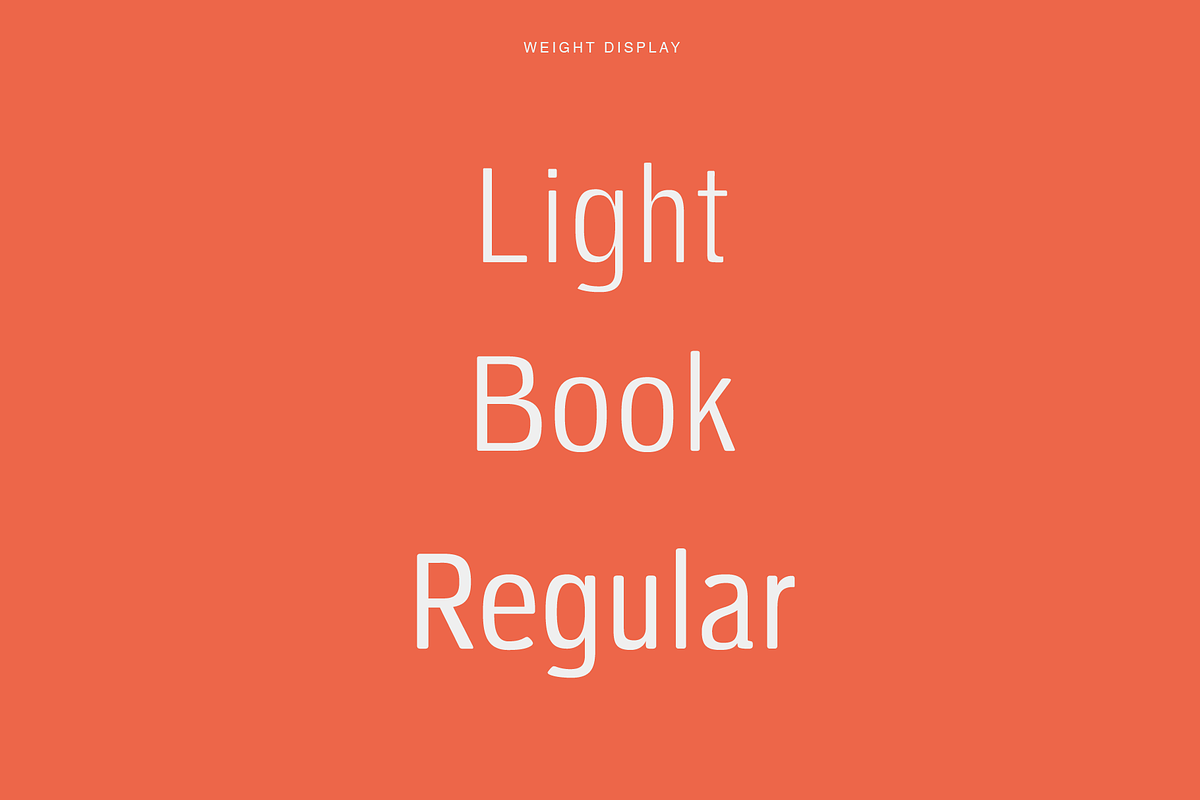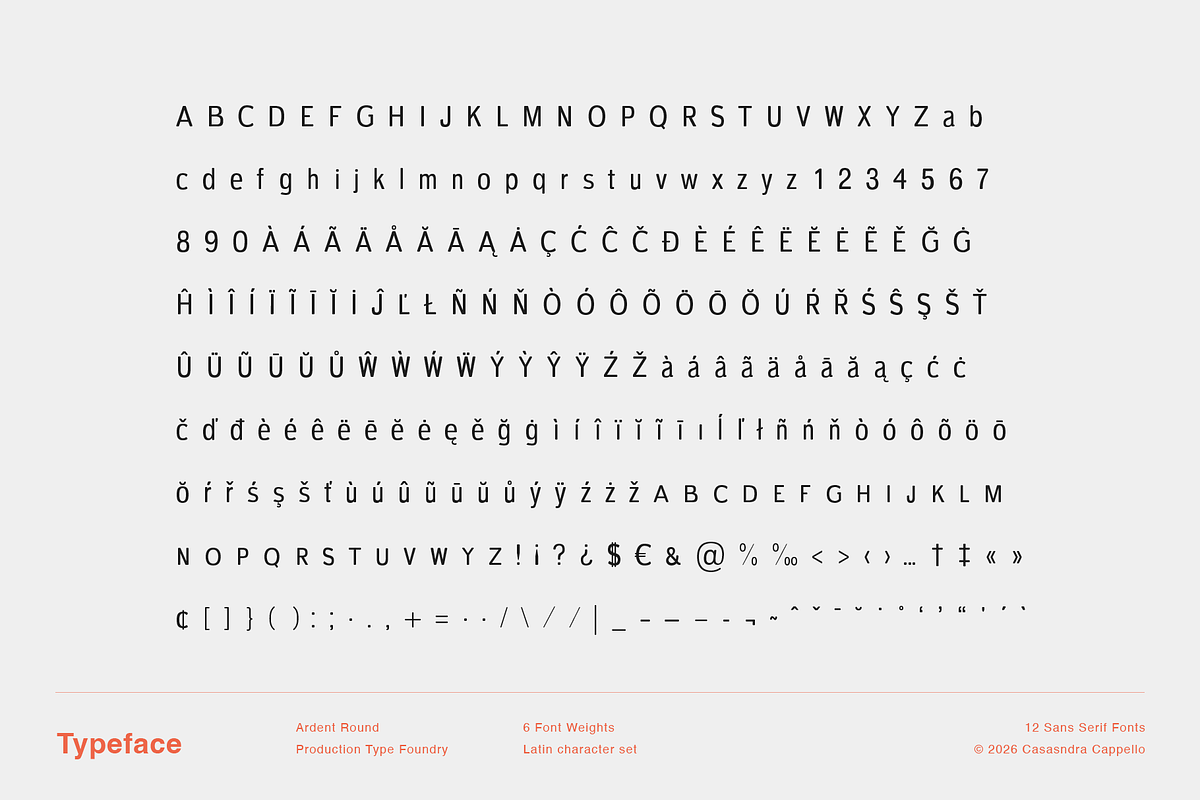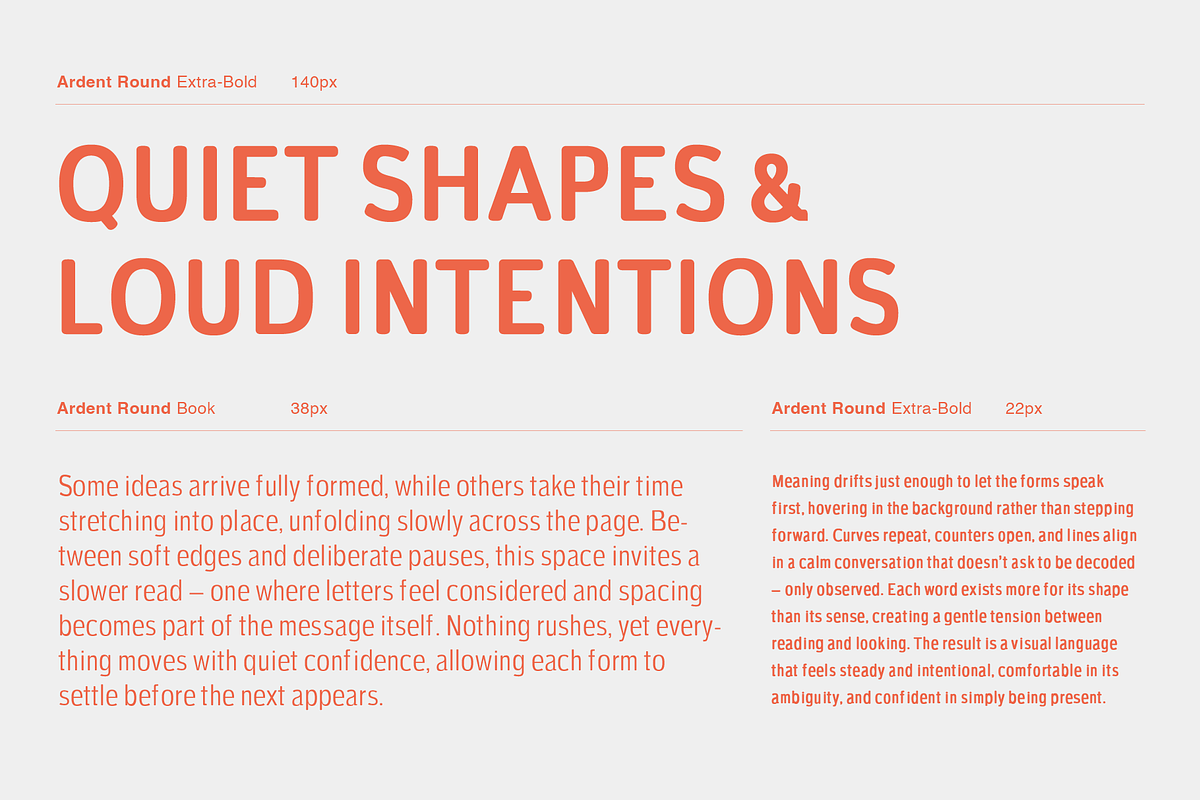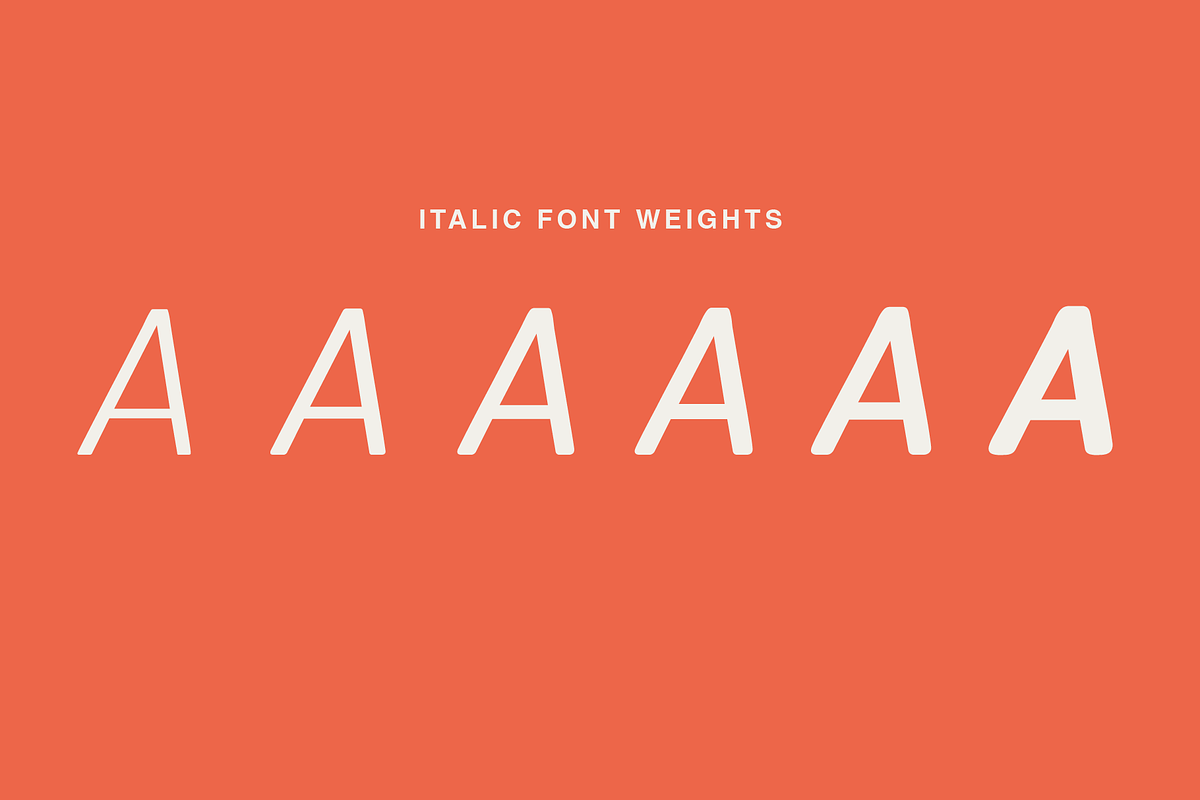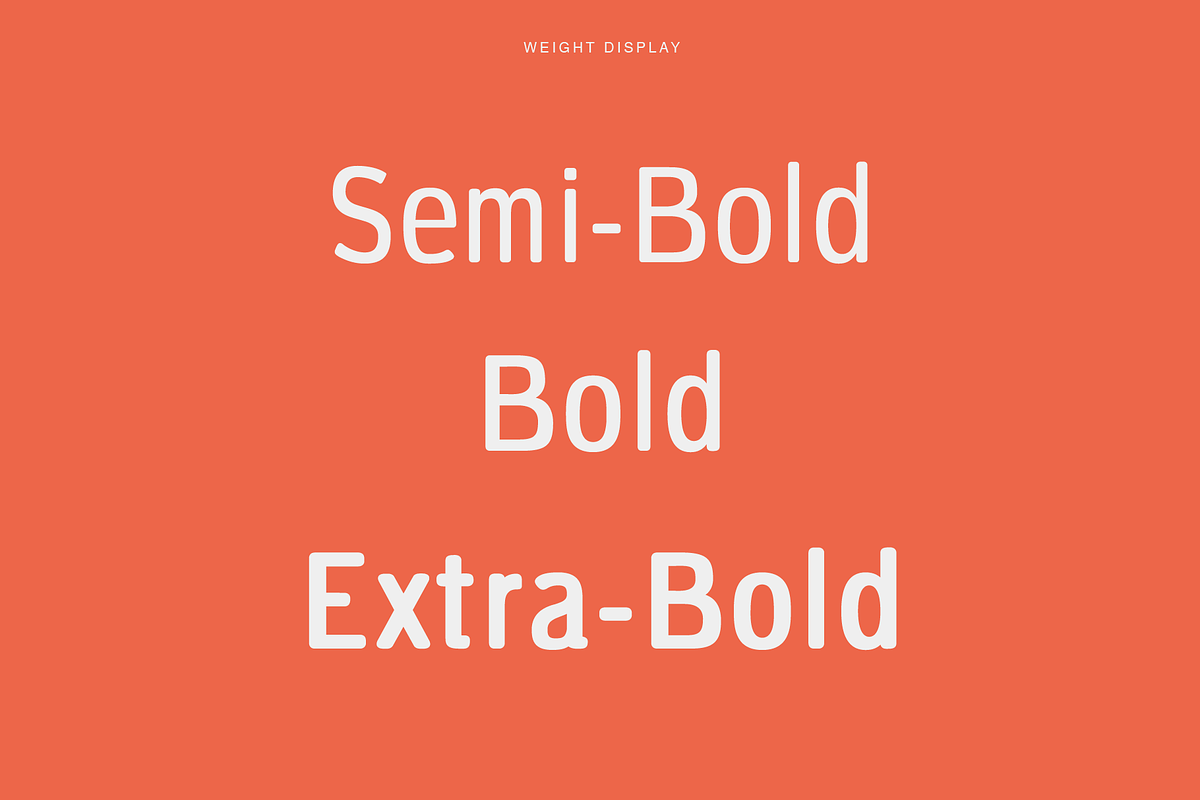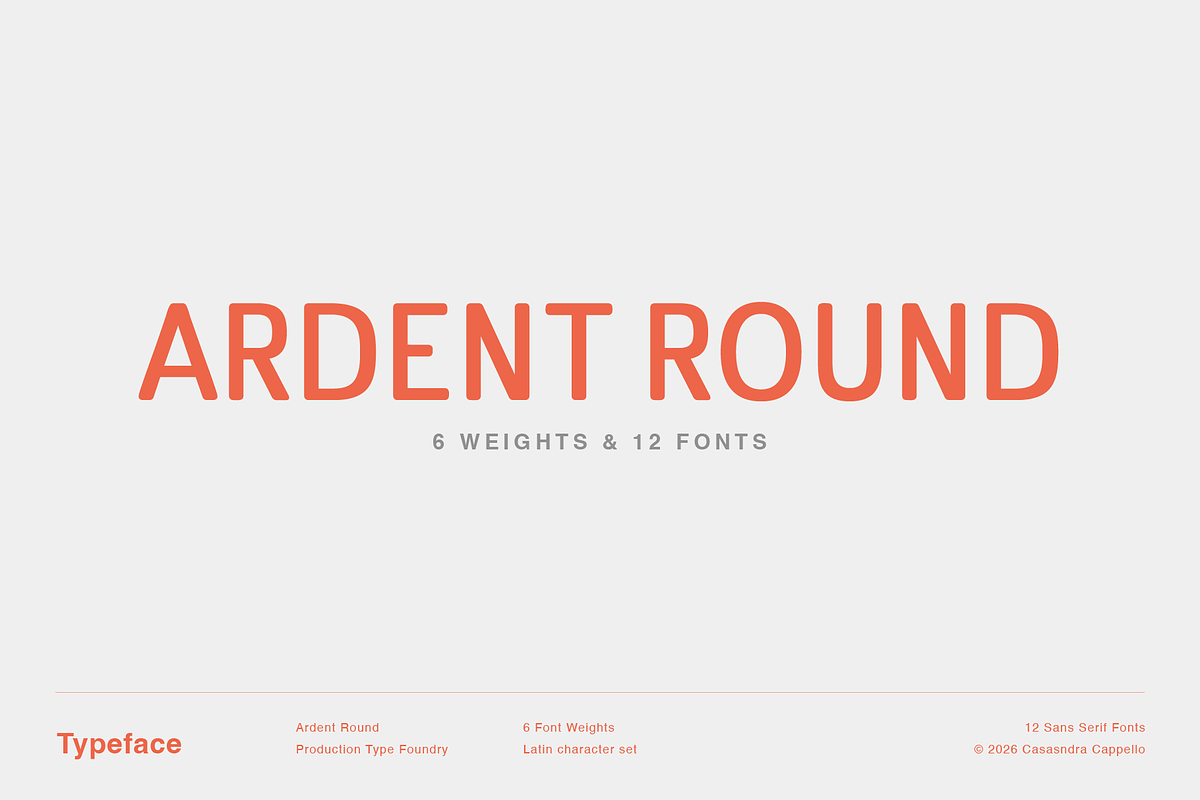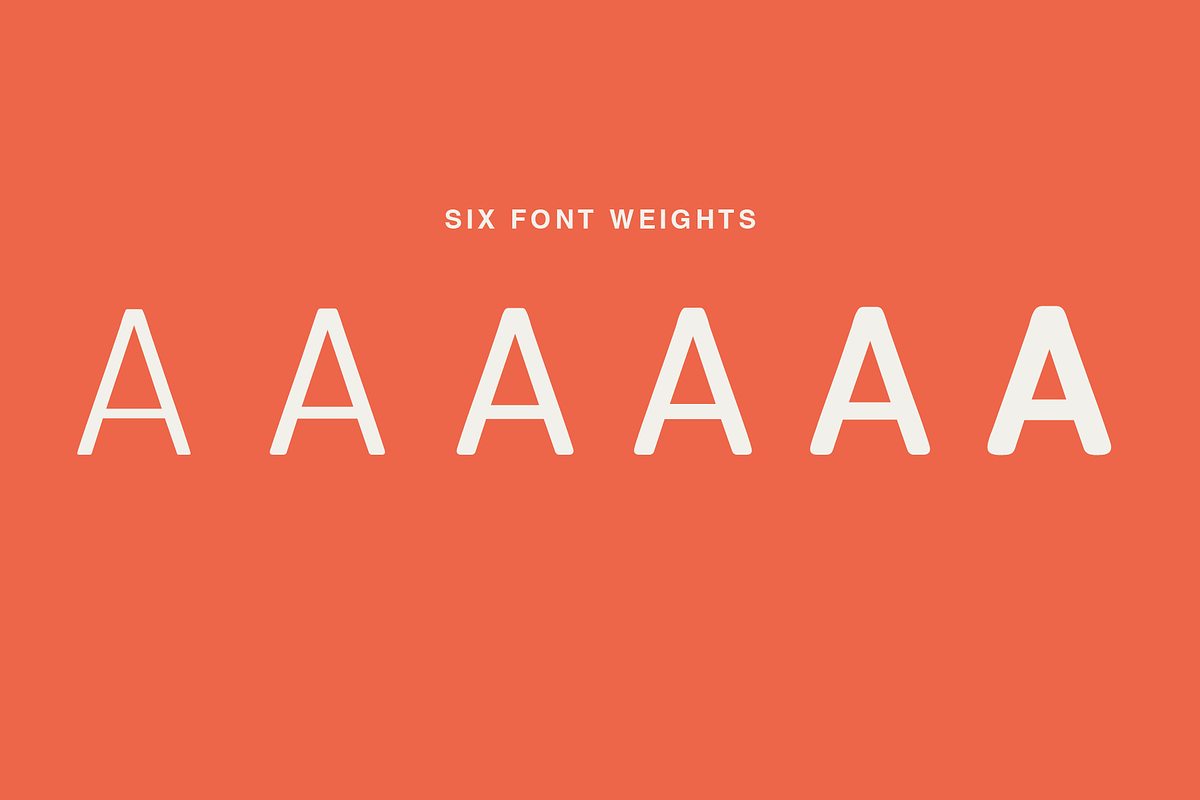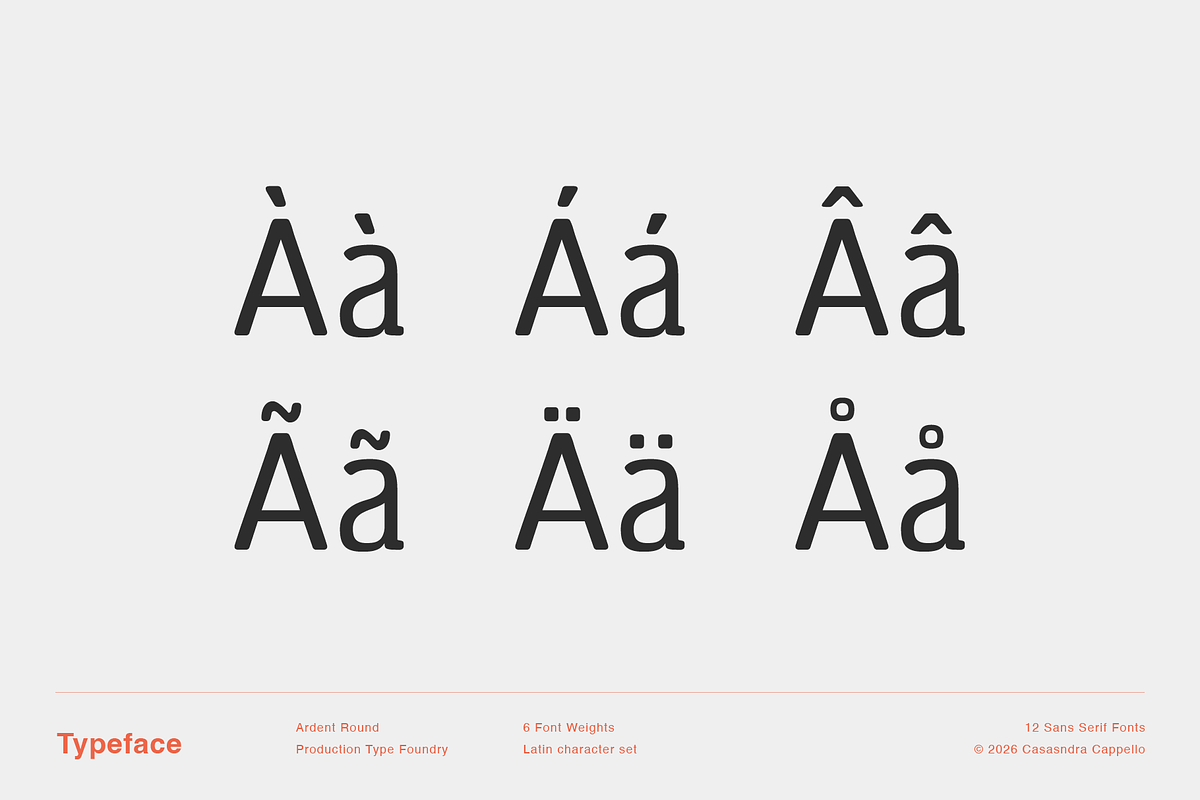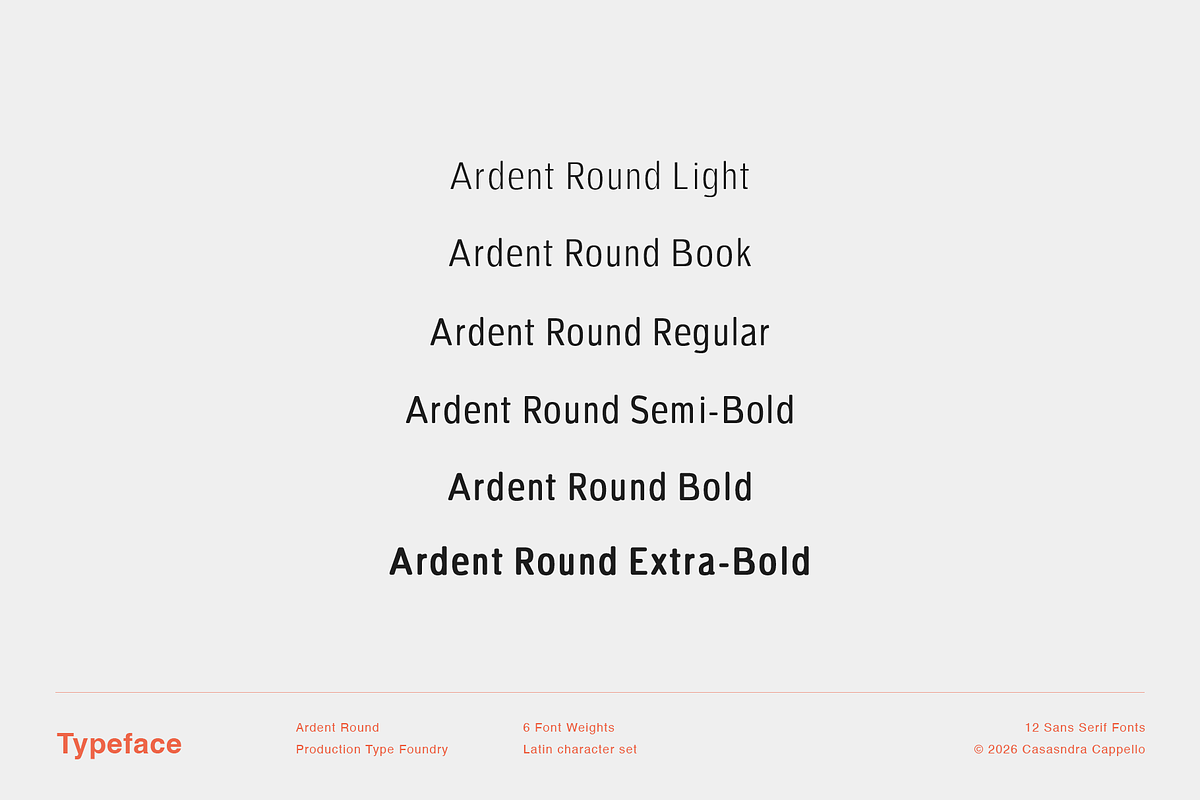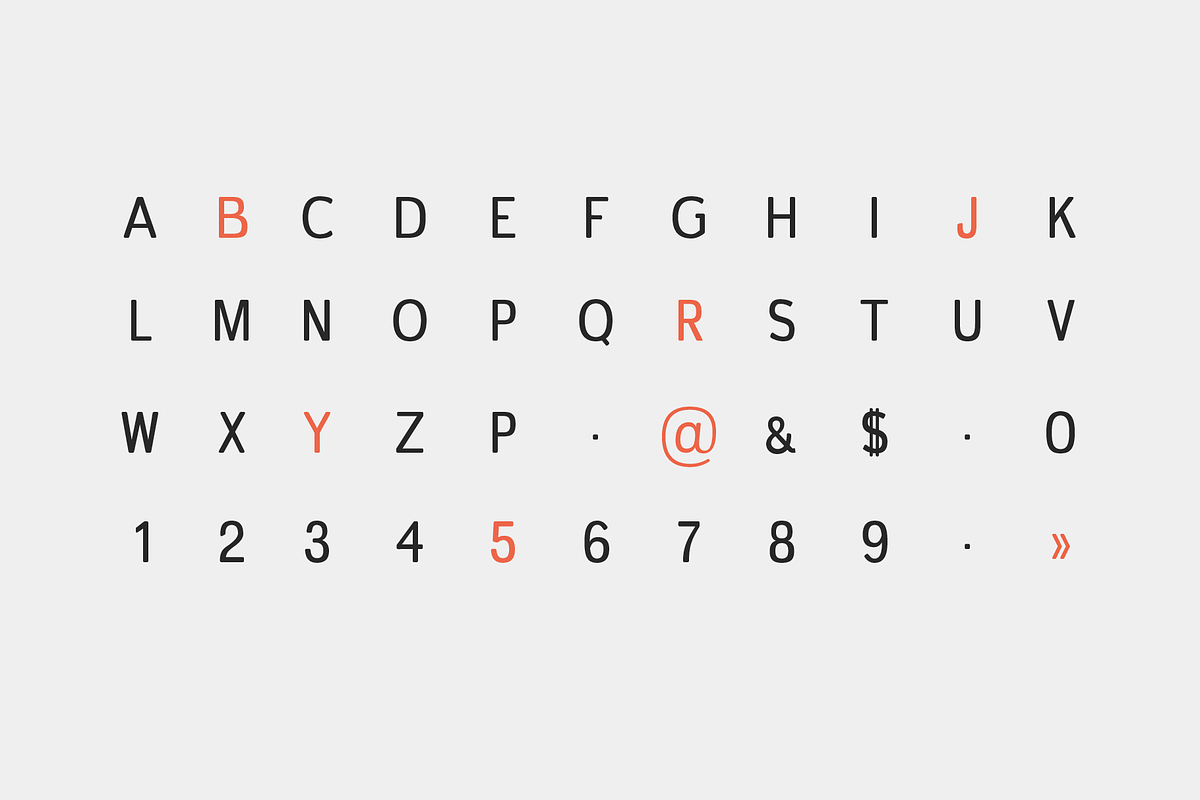
Ardent Round
Ardent Round is a minimal, modern sans serif typeface. This slightly condensed font can be used for both headers and body copy. This font family includes all Latin characters (including accents), numbers, special characters, and punctuation.